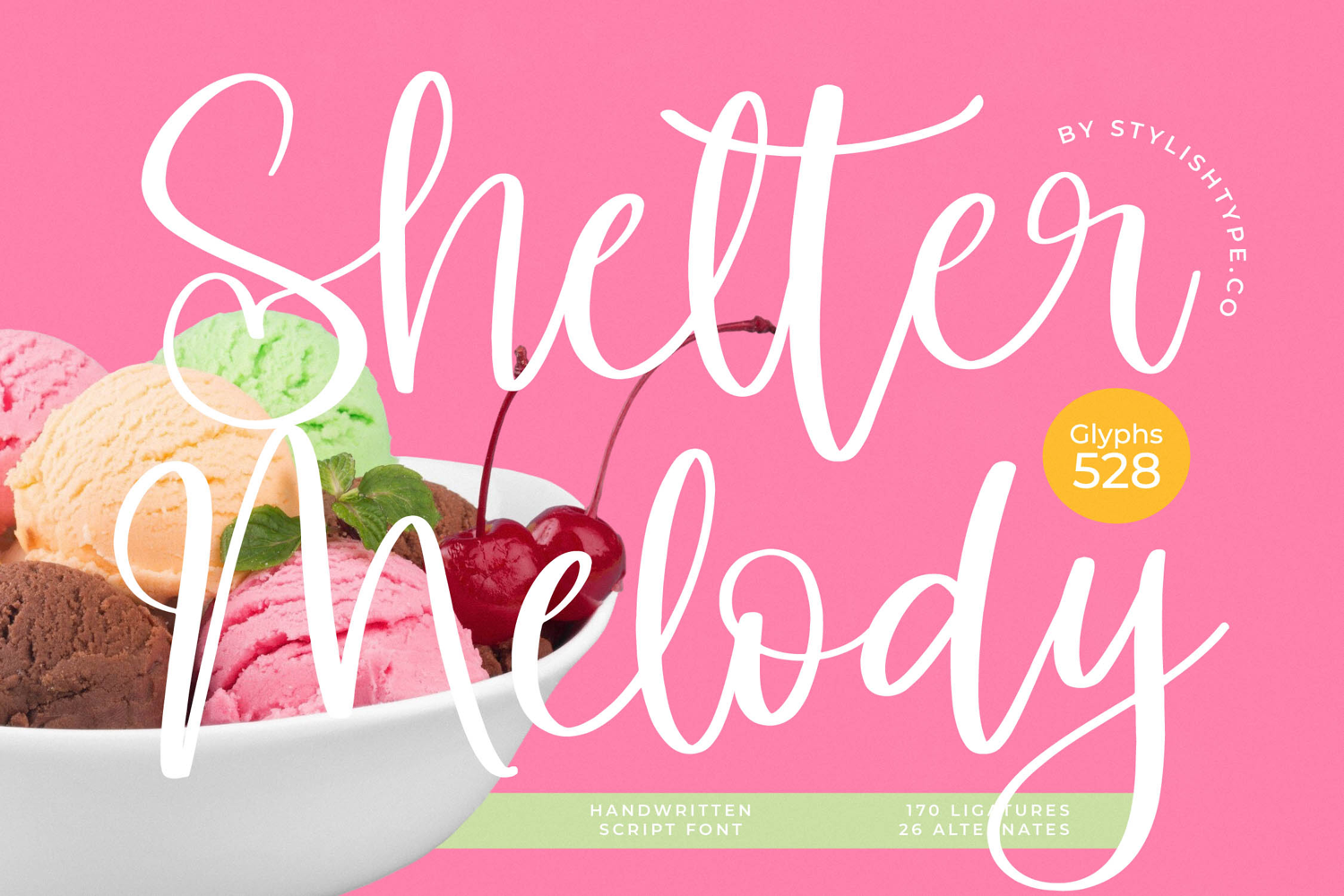
Shelter Melody - Handwritten Script Font
Shelter Melody - Handwritten Script Font is a dynamic, high-impact script designed to bring an authentic, expressive touch to any project. Characterized by its generous swoops and highly readable connecting flow, this font captures the energetic essence of genuine handwriting while maintaining a polished, digital finish. It provides effortless charm and significant visual weight, ensuring your headlines command attention and resonate instantly with the viewer, offering a look that is both luxurious and approachable.